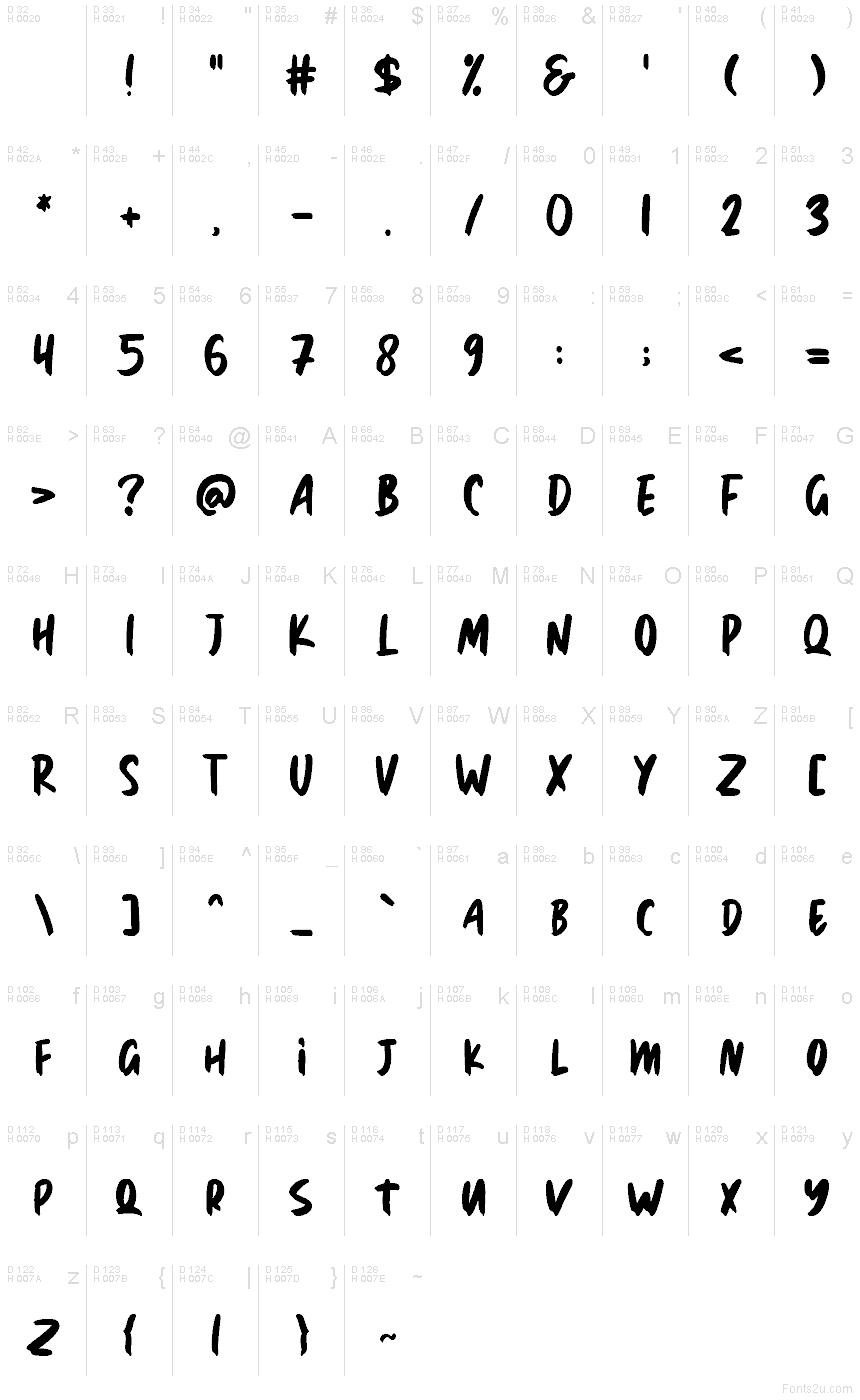
Jack Sphinx Regular
Jack Sphinx font, designed by Wildan Type, captures an expressive and energetic feel with its condensed width and bold brush strokes. This free font has a grungy yet casual character marked by irregularities in form that create a striking and unusual style.
With its creative design, it’s suitable for attention-grabbing magazine covers, posters, quotes, branding projects, logos, book covers, YouTube channel arts or thumbnails, banners for shop names or restaurants. It works also really well in advertising for products related to kids/students like toothpaste ads etc.